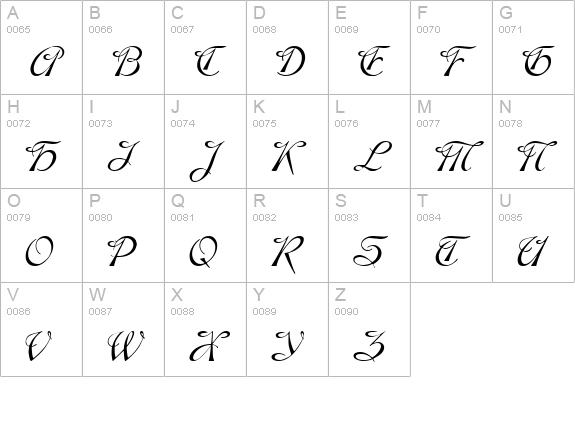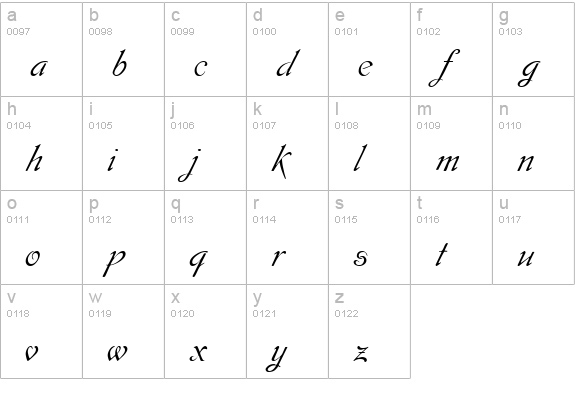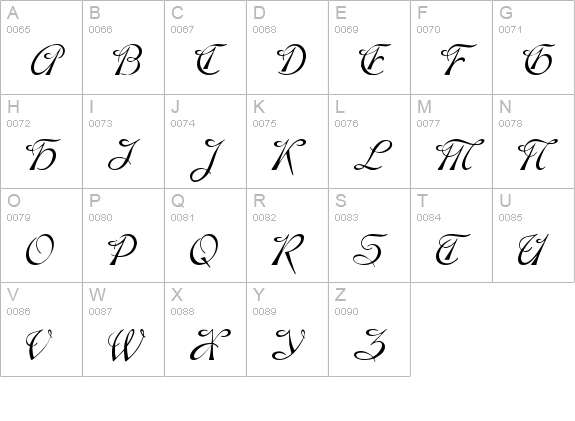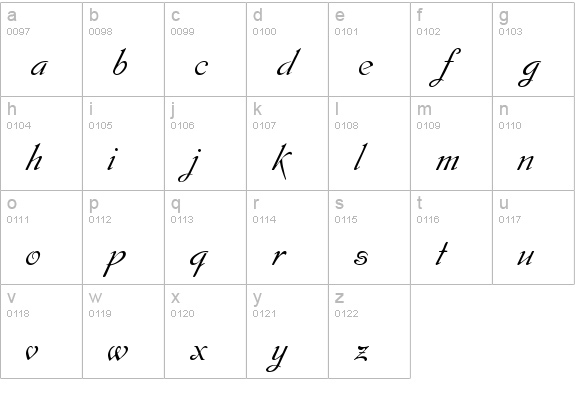
Esperanza™ font is a stunning display typeface that exudes elegance and sophistication. With its graceful curves and balanced letterforms, Esperanza™ is the perfect choice for projects that require a touch of refinement and class. This versatile font can be used for a wide range of design applications, from branding to editorial design and beyond. The best part? Esperanza™ is completely free to download at FontsMarket.com! This means you can add this beautiful font to your collection without breaking the bank. Whether you are a seasoned designer looking to freshen up your font library or a newcomer eager to experiment with different typefaces, Esperanza™ is sure to impress with its timeless charm and versatility. Download Esperanza™ today and elevate your design projects with this exquisite font.